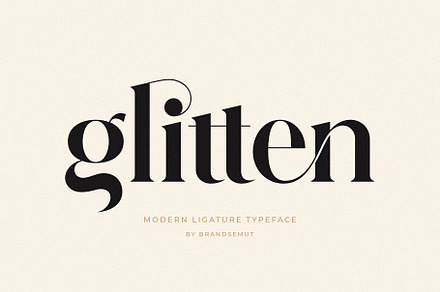
Glitten || Ligature Serif Font
A serif with an extensive ligature set, where adjacent characters combine into joined forms that give a setting decorative texture.
Heavy ligature use makes each word slightly unique, since the combinations depend entirely on which letters happen to sit together.
- Extensive automatic ligature set
- Alternates included
Put it to work on
- Logo and wordmark design
- Packaging and label work
- Editorial headlines
- Social and print graphics